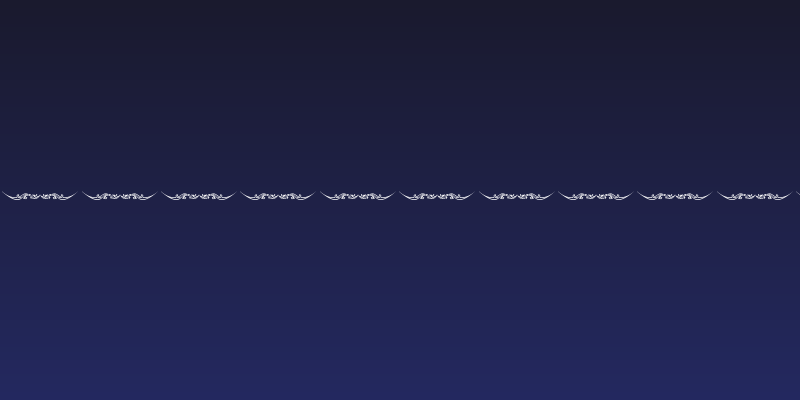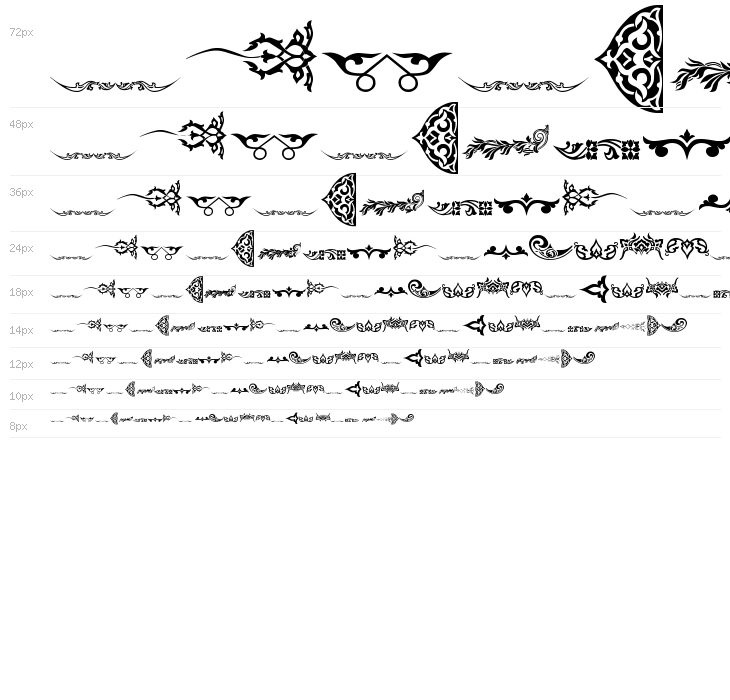
Vintage Decorative Signs 6 Font
Vintage Decorative Signs 6 Description
A collection of highly decorative vintage-style ornamental borders and flourishes, featuring intricate swirls, floral motifs, and symmetrical patterns. These elements are detailed and ornate, evoking a classic, antique aesthetic suitable for embellishing designs.
| Overall Style | Vintage, Decorative |
| Use Case | Borders, frames, dividers, and ornamental accents. |
| Proposed Projects | Wedding invitations, certificates, vintage posters, book covers, decorative signage, and branding for luxury or heritage products. |